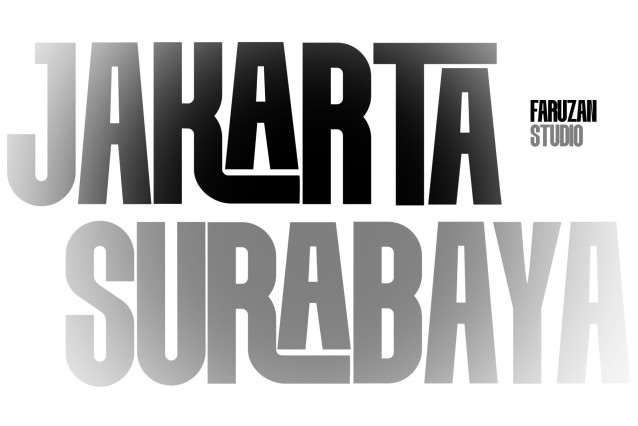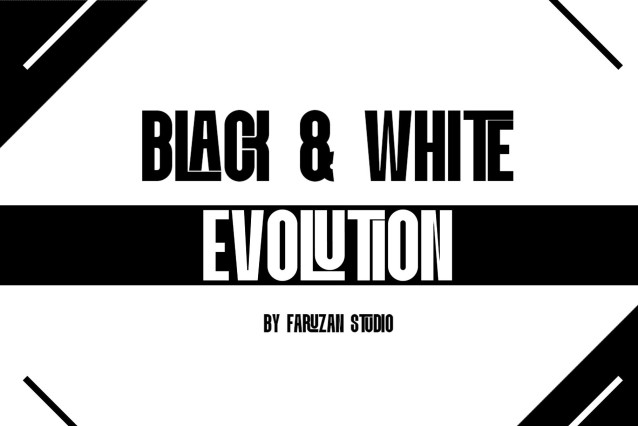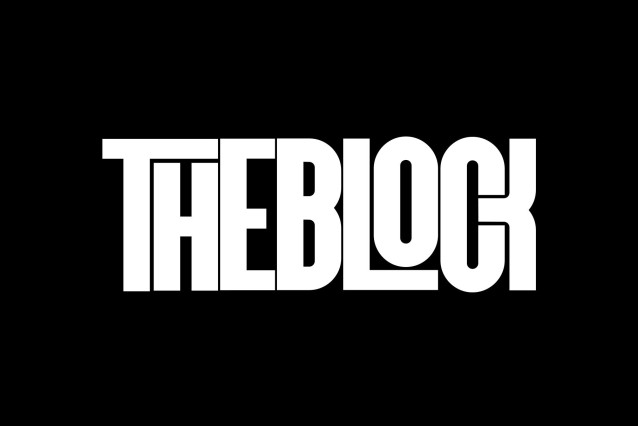
TheBlock Font
TheBlock Font is a bold, solid sans-serif font designed to create a modern, bold, and solid impression. With a structured geometric style, this font is ideal for use in design projects that require strong visuals, including branding, posters, headlines, and editorial designs.
TheBlock Font Features
Standard Glyphs:
Provides alphabet characters A-Z in bold, clear capital letters, as well as numbers 0-9. This design ensures optimal readability for a variety of applications.
Multilingual Support:
This font supports a variety of multilingual characters, including accents and special letters such as À, Ä, Ç, É, Ñ, Ø, and more, making it an ideal choice for global projects.
Numerical & Functional Characters:
TheBlock includes a full complement of functional symbols such as punctuation, mathematical symbols, and special characters for flexibility in a variety of design needs.
Visual Appearance:
Logo: Suitable for creating modern and memorable logos, with bold design elements and high contrast.
Headline: This font stands out in large headlines with its bold look, like the word “ADVENTURE” that exudes the spirit of exploration.
Unique Tagline & Design: The combination of gradient styles in taglines like “The Lost Wanderer” shows that this font is capable of being flexible and artistic.
Developed by Faruzanstudio, TheBlock combines elements of functionality and modern aesthetics that are highly relevant for today’s design needs.